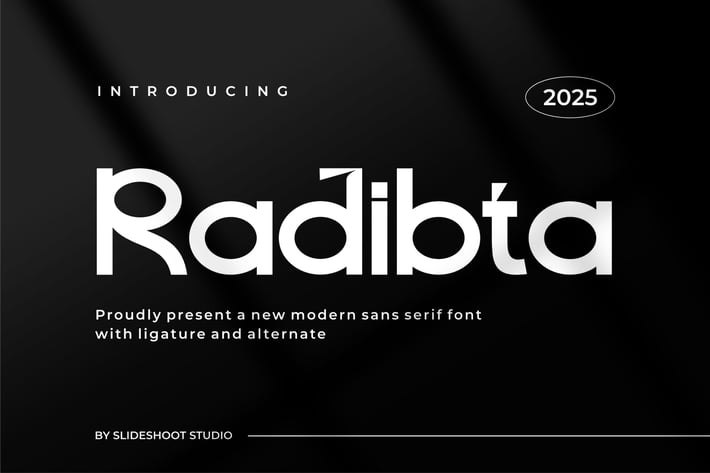
Radibta || Modern Sans Serif Font
Introducing Radibta is a modern sans serif font, trendy, bouncy and cute display font. It has a unique character with wood theme. It is perfect to be combined with invitation card designs, company logos, movie titles, movie names, business cards, book titles, brand names and various other designs.